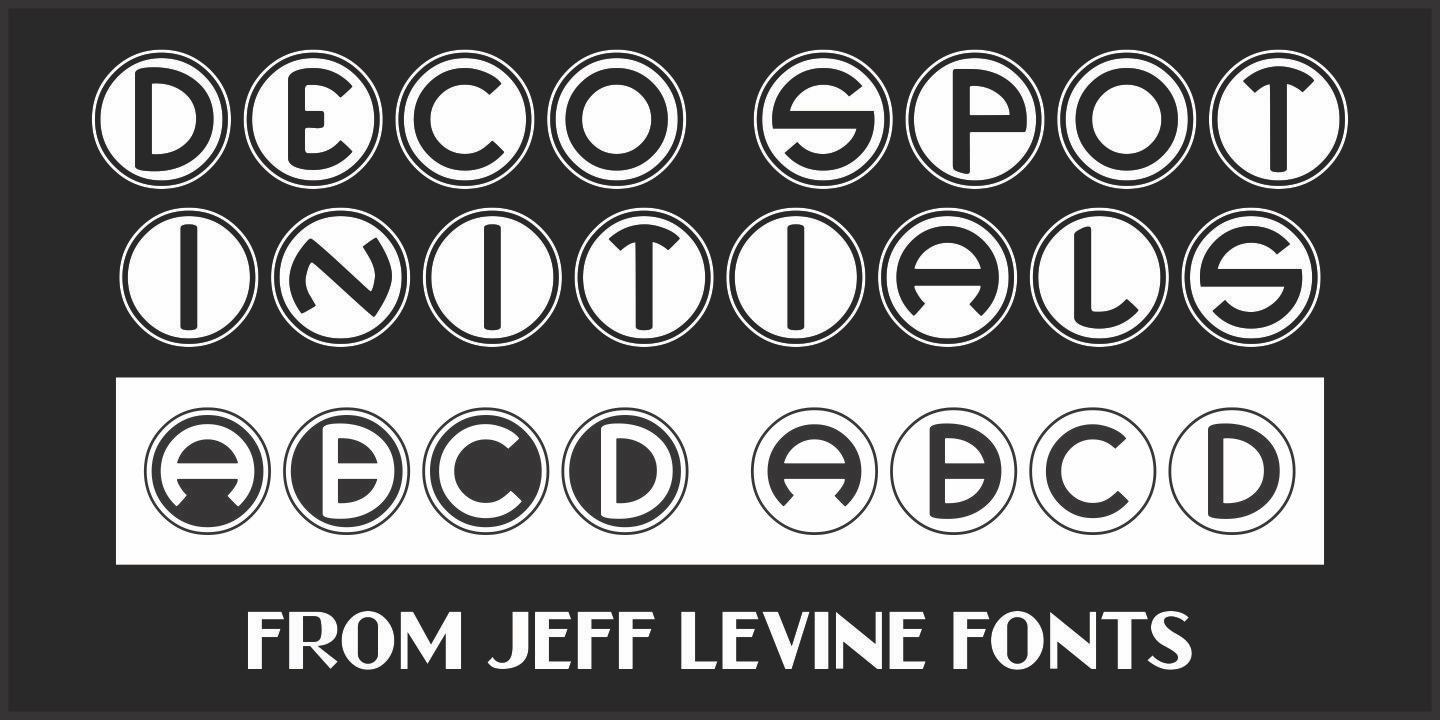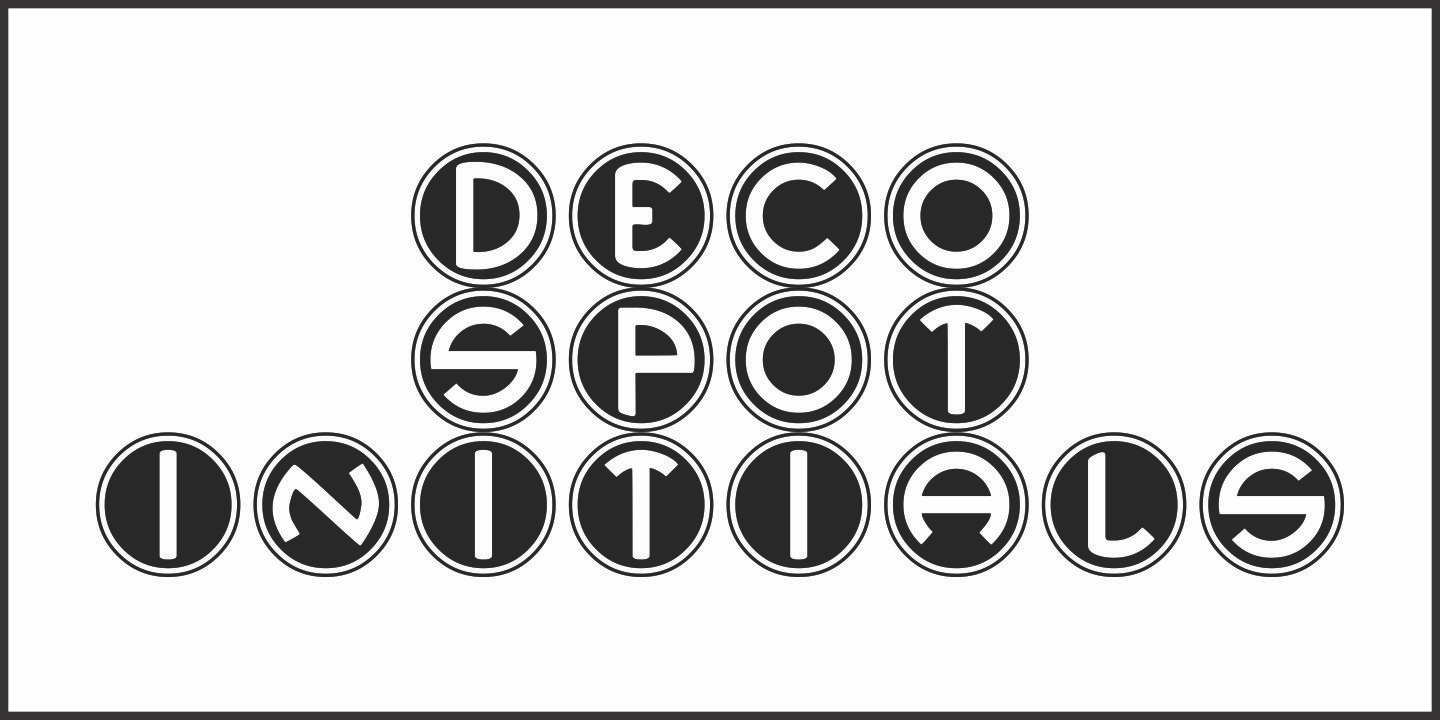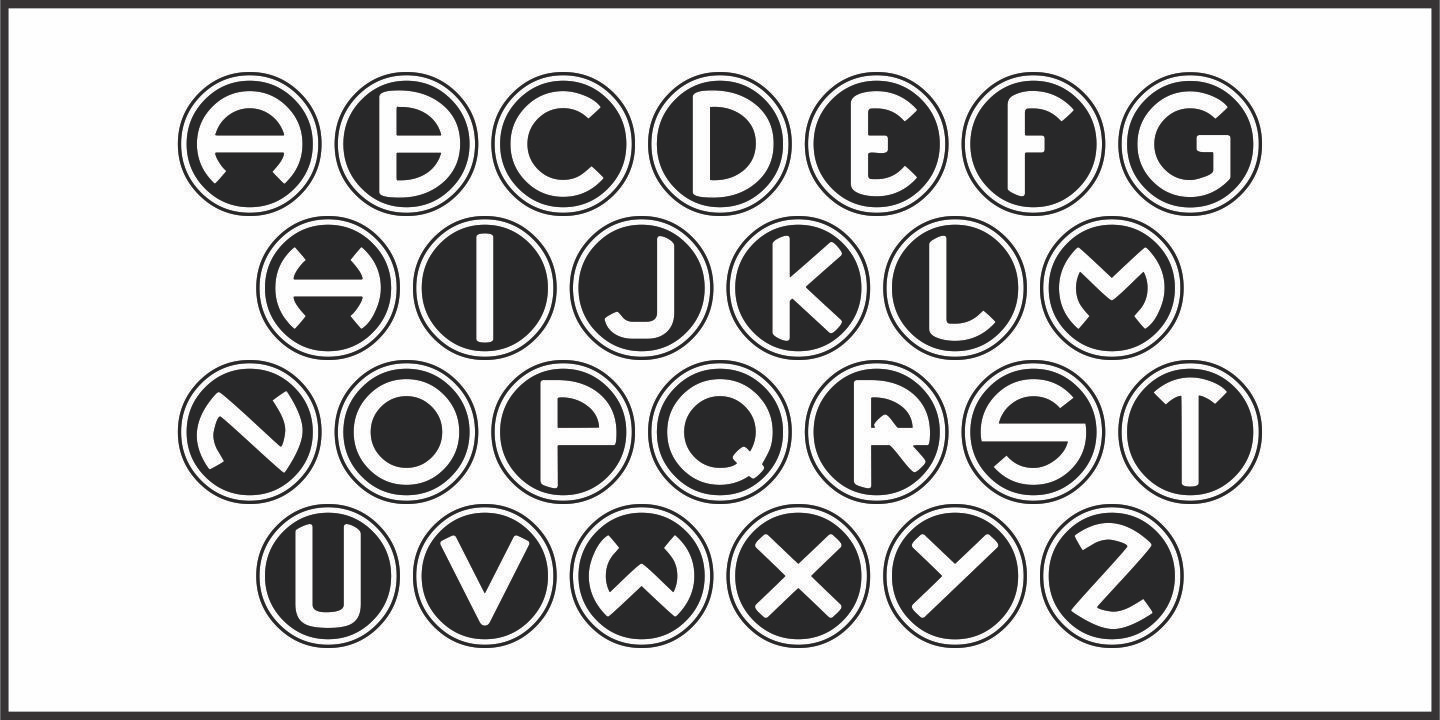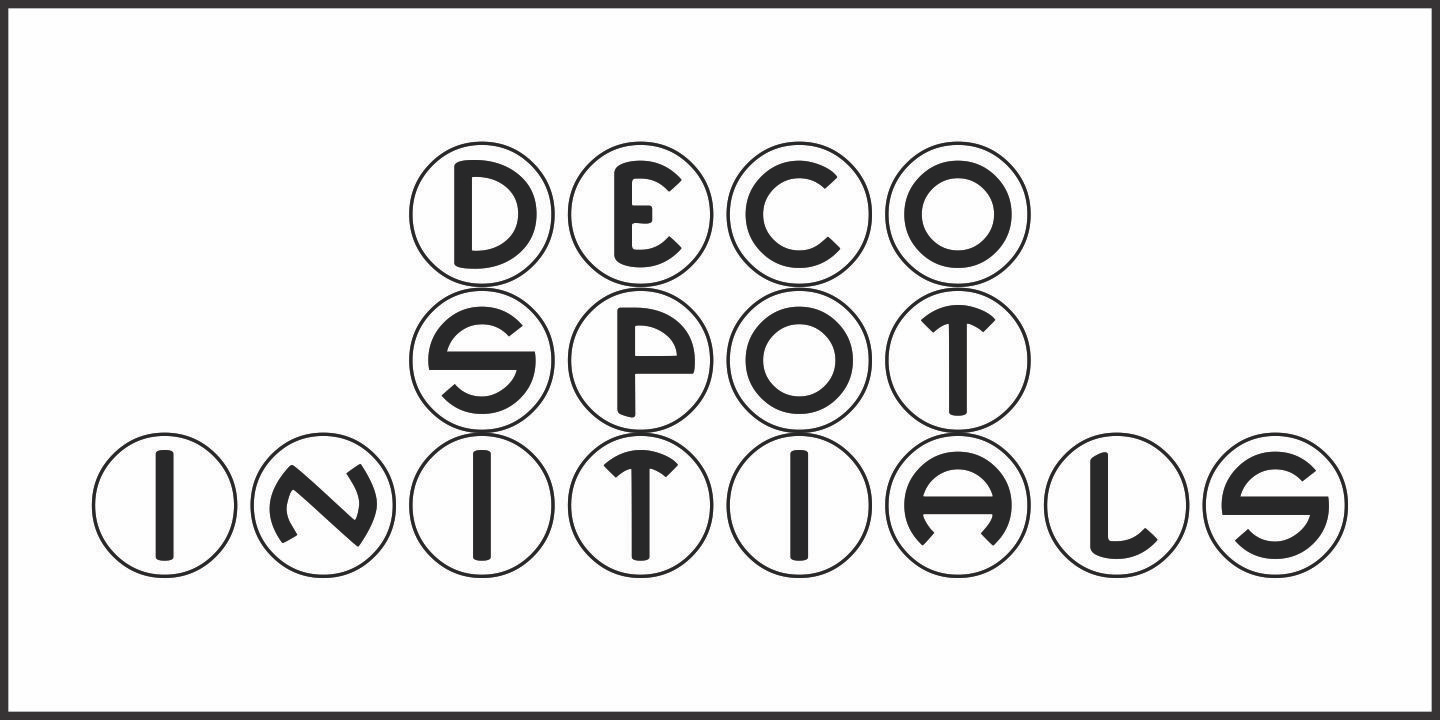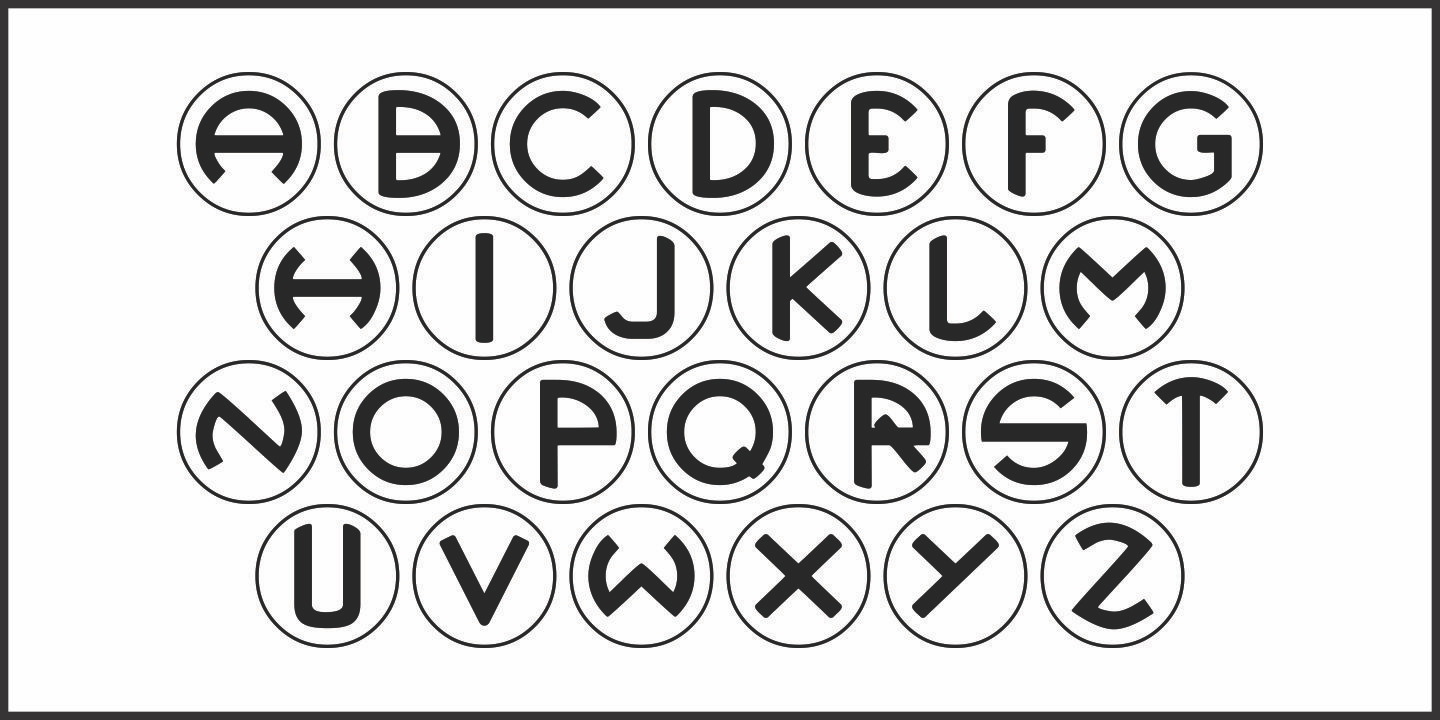
Deco Spot Initials
A set of rounded Art Deco initials set inside circular borders was found amongst the pages of the vintage French lettering book "Modèles de Lettres Modernes par Georges Léculier”.
Now made into a digital font called Deco Spot Initials JNL, these classic letter forms are available in both the original white-on-black version and as a black-on-white alternate design.
Deco Spot Initials JNL Regular by Jeff Levine Fonts